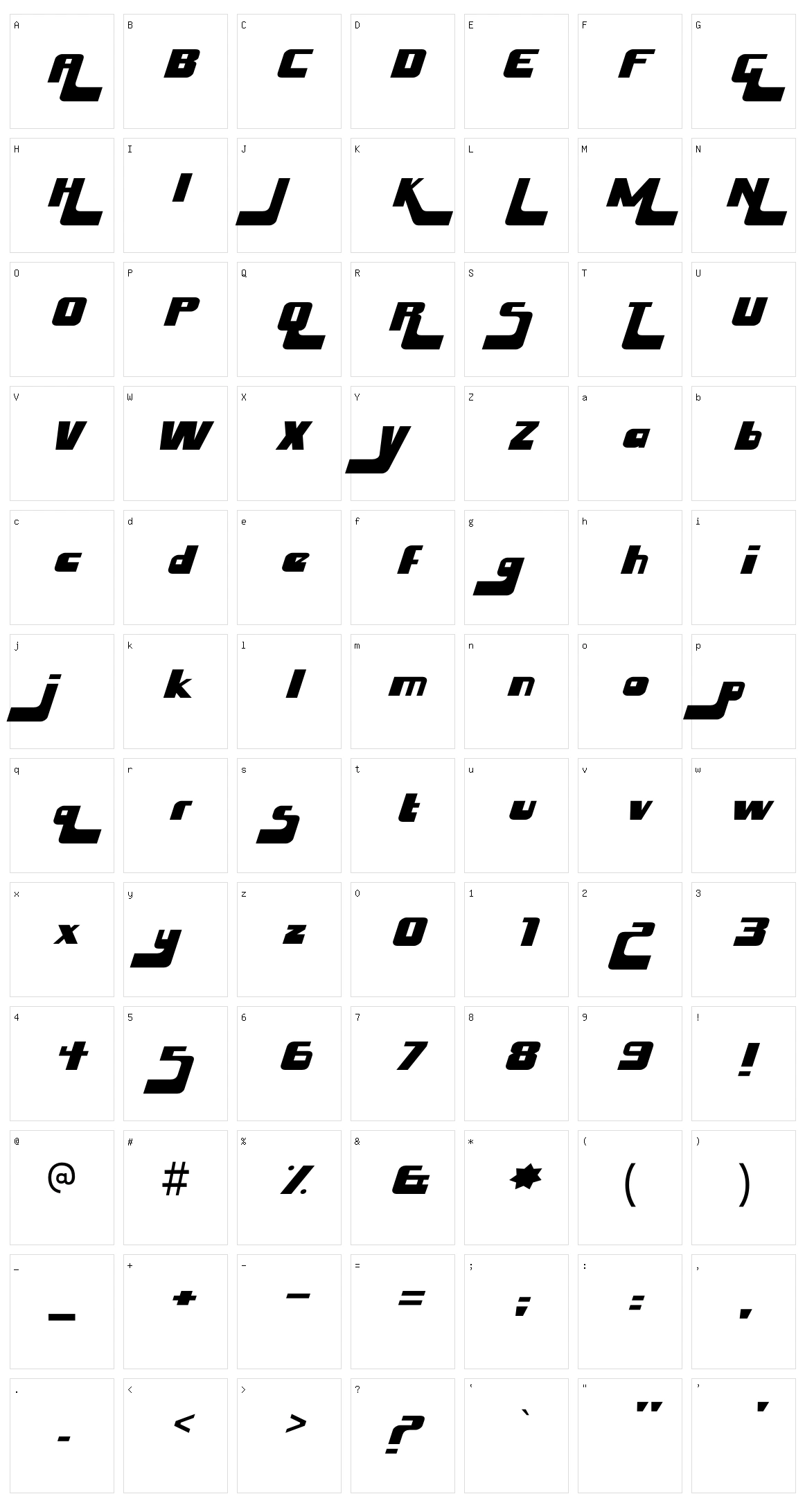
The free font Husky Stash is carefully designed by Typodermic Fonts, showcasing a thoughtful balance of creativity and usability and falls under the Groovy font style. When you download the ZIP file, it contains only 61.52 KB of font files, making it lightweight and quick to download. Please review the license details below to understand permitted usage and distribution rights. If license information is not available, we recommend using this font for personal projects only or contacting the author directly for commercial usage permissions.